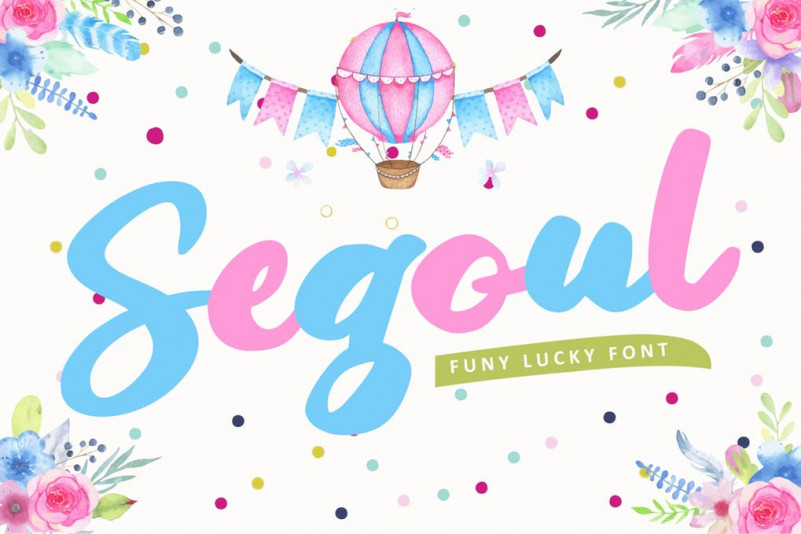
Segoul Lucky Funny Font
Segoul | Lucky Funny Font with a Kids style, So beautiful on invitation like greeting cards, branding materials, business cards, quotes, posters, and more!